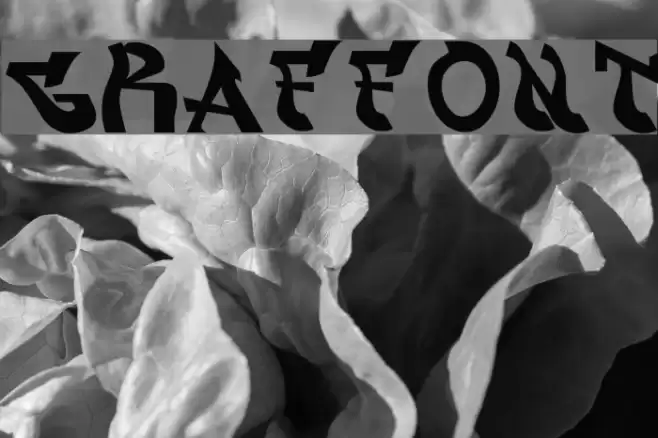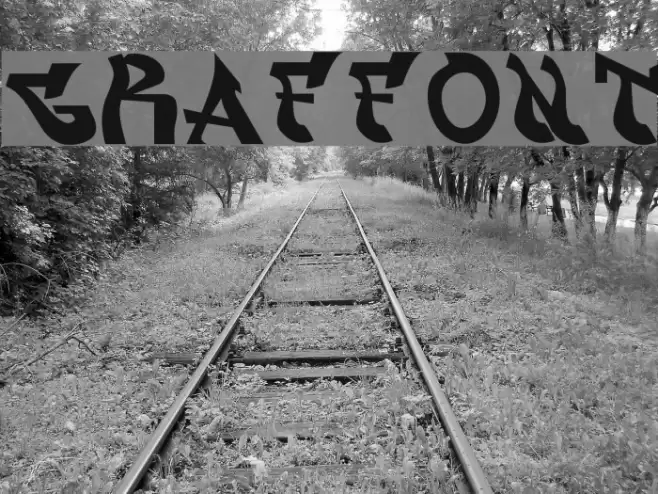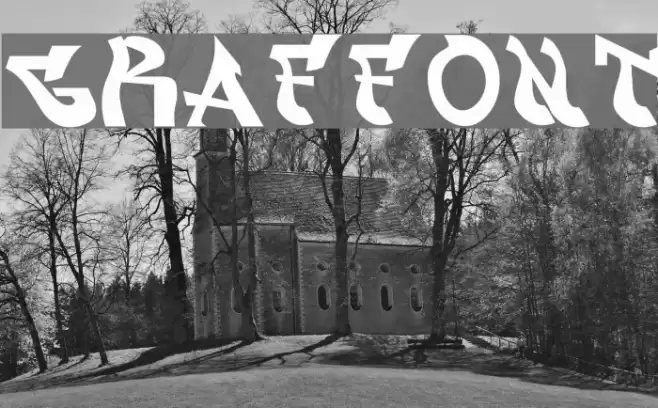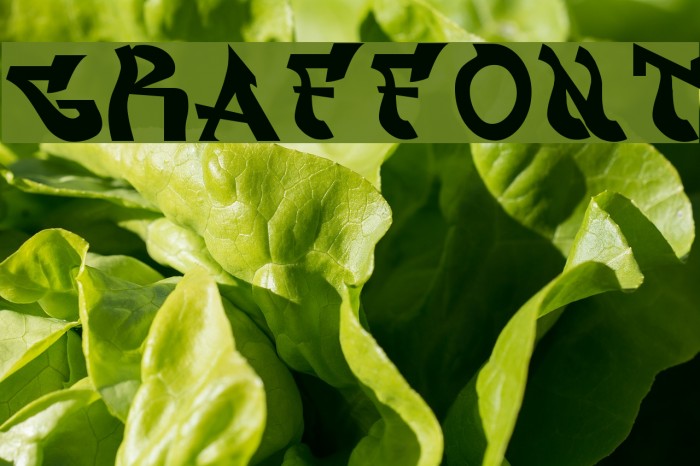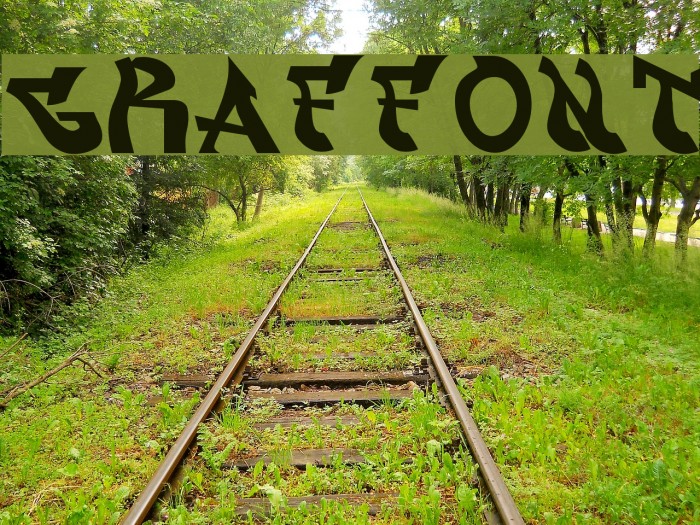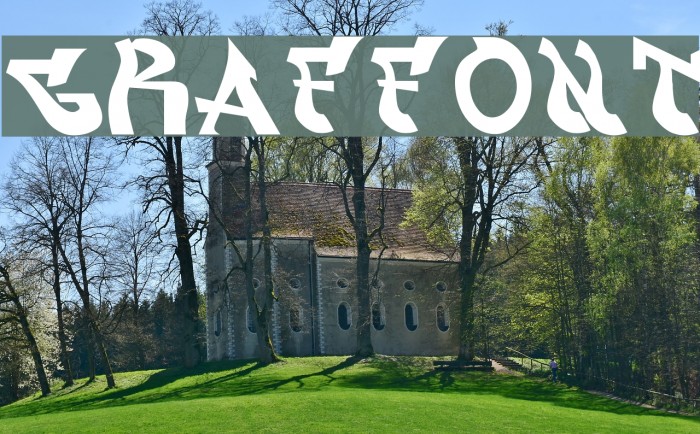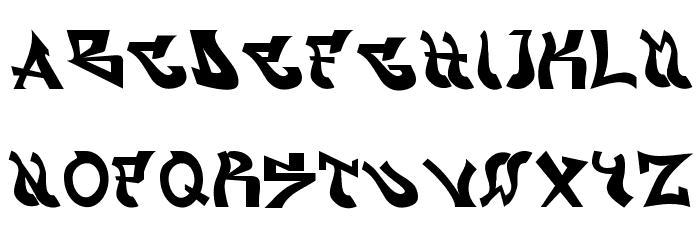
graffont Font
graffont Description
This font exhibits a bold and dynamic style, characterized by its sharp, angular edges and a graffiti-inspired aesthetic. The letters are heavily stylized, with exaggerated curves and points that create a sense of movement and energy. The uppercase letters are particularly striking, with each character possessing a unique flair that contributes to the overall urban and edgy feel. The font's design is reminiscent of street art, making it ideal for projects that aim to capture a rebellious or unconventional spirit. Its boldness ensures high visibility, making it suitable for impactful headlines or titles.
A bold, graffiti-inspired font with sharp, angular edges and dynamic styling from Uncategorized fonts.
- Proposed Projects: Ideal for street art designs, urban-themed posters, music album covers, and edgy branding projects.
- Overall Style: Urban, Edgy, Graffiti